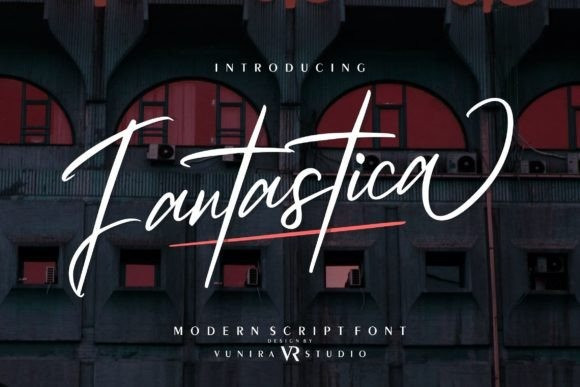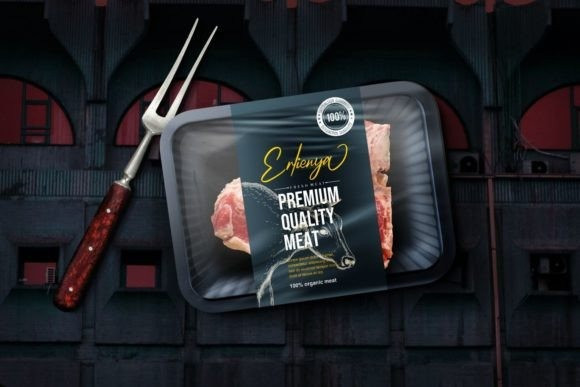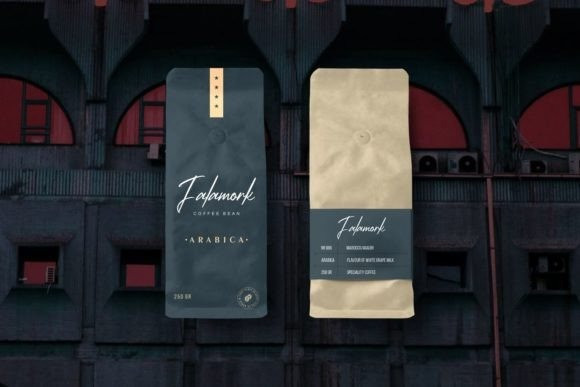
Fantastica Font
Fantastica is a delicate and elegant handwritten font. Its distinct and well-balanced letters make this font a masterpiece. Fall in love with its incredibly versatile style and use it to create spectacular designs!